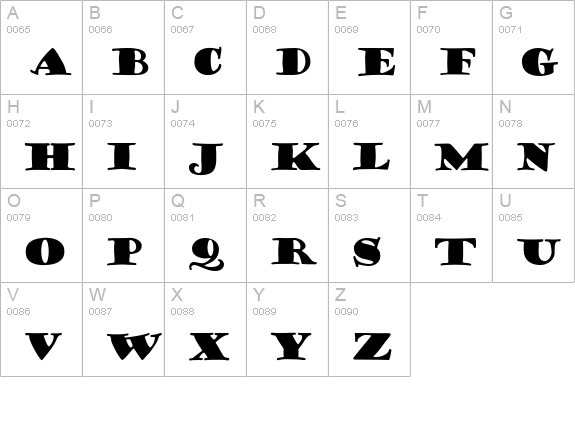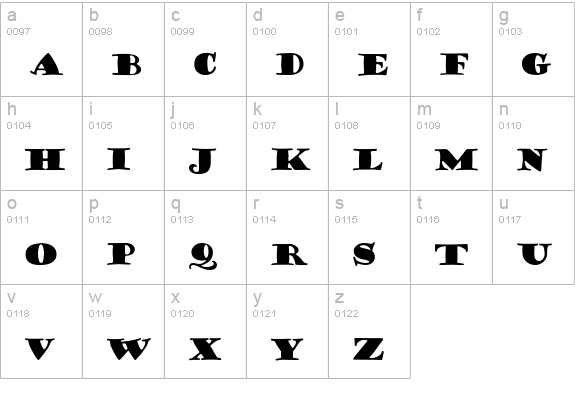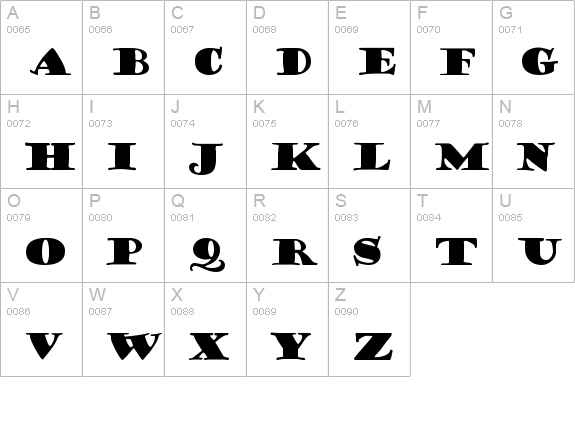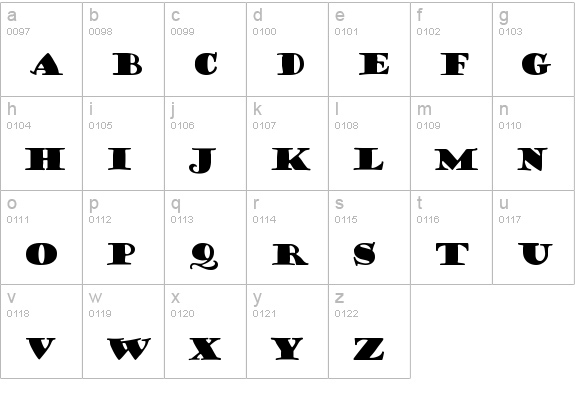
FZ JAZZY 38 Font Details
FZ JAZZY 38 is a stylish and modern font that exudes an air of sophistication and creativity. With its sleek lines and unique design, this font is perfect for adding a touch of elegance to any project. The bold yet graceful letterforms make FZ JAZZY 38 a versatile choice for both digital and print designs. What makes FZ JAZZY 38 even more appealing is that it is available for free download at FontsMarket.com. This means that you can easily access this stunning font and use it in your projects without any cost. Whether you're designing a poster, logo, website, or any other creative endeavor, FZ JAZZY 38 is sure to make a statement and elevate your work to the next level. Don't miss out on the opportunity to enhance your designs with this beautiful and free font today!